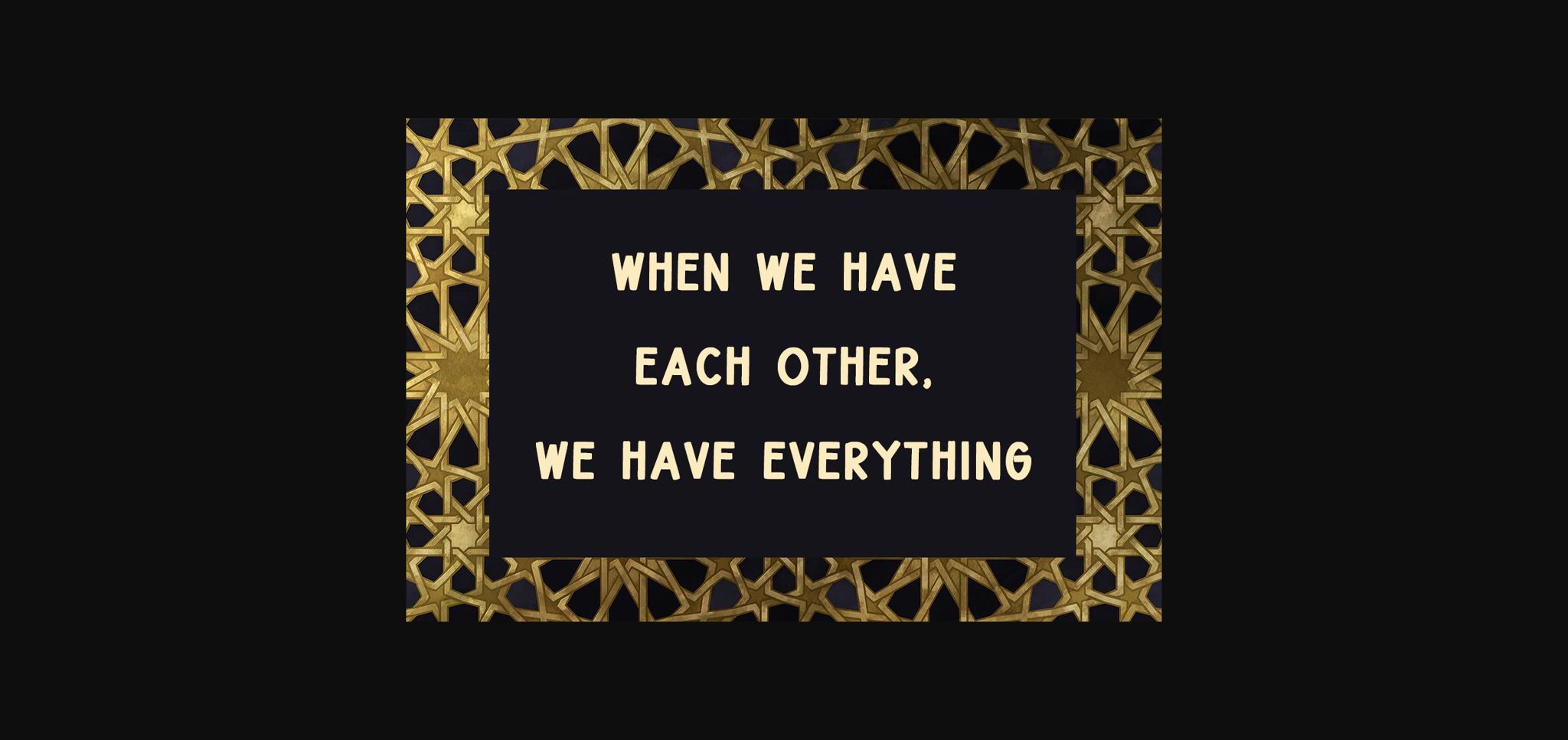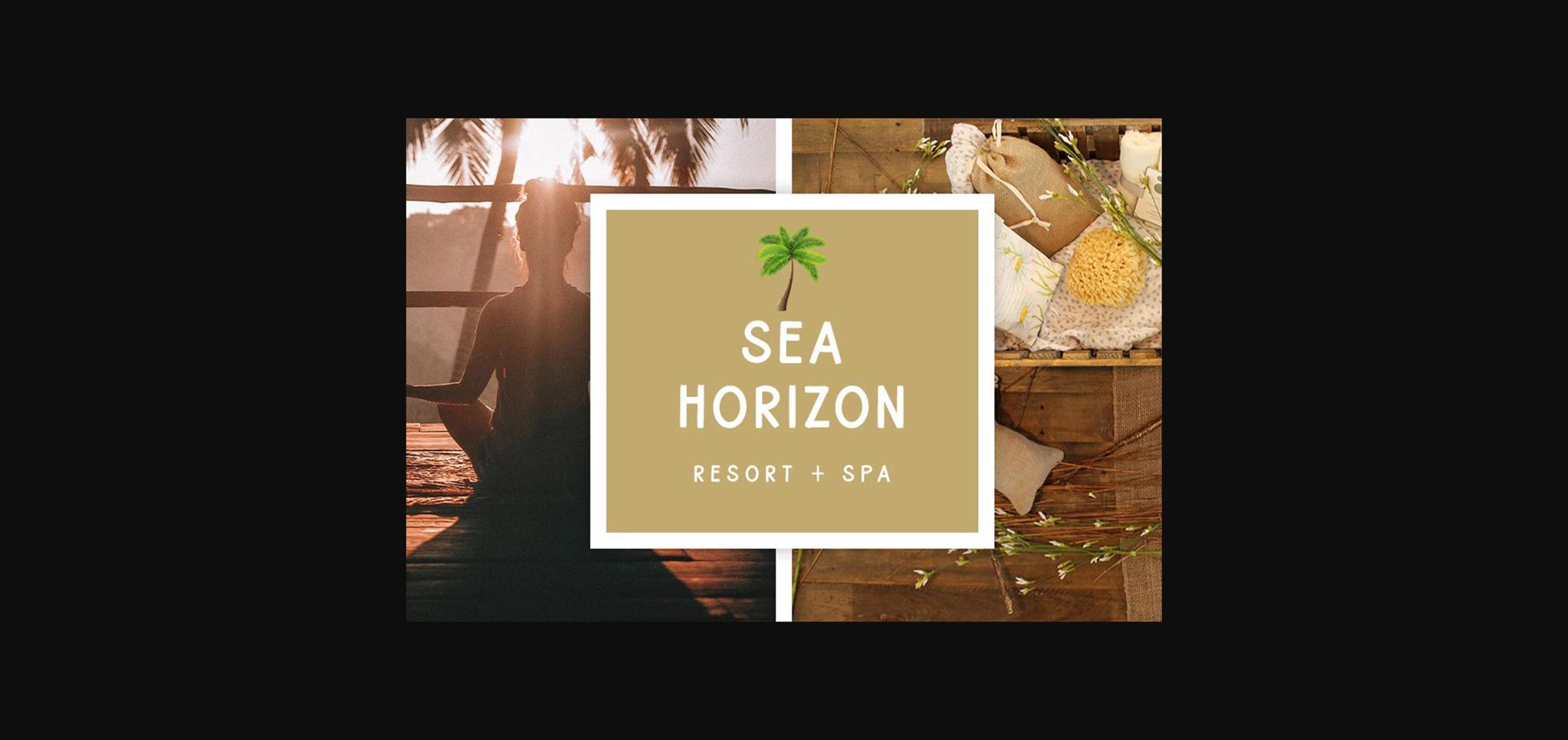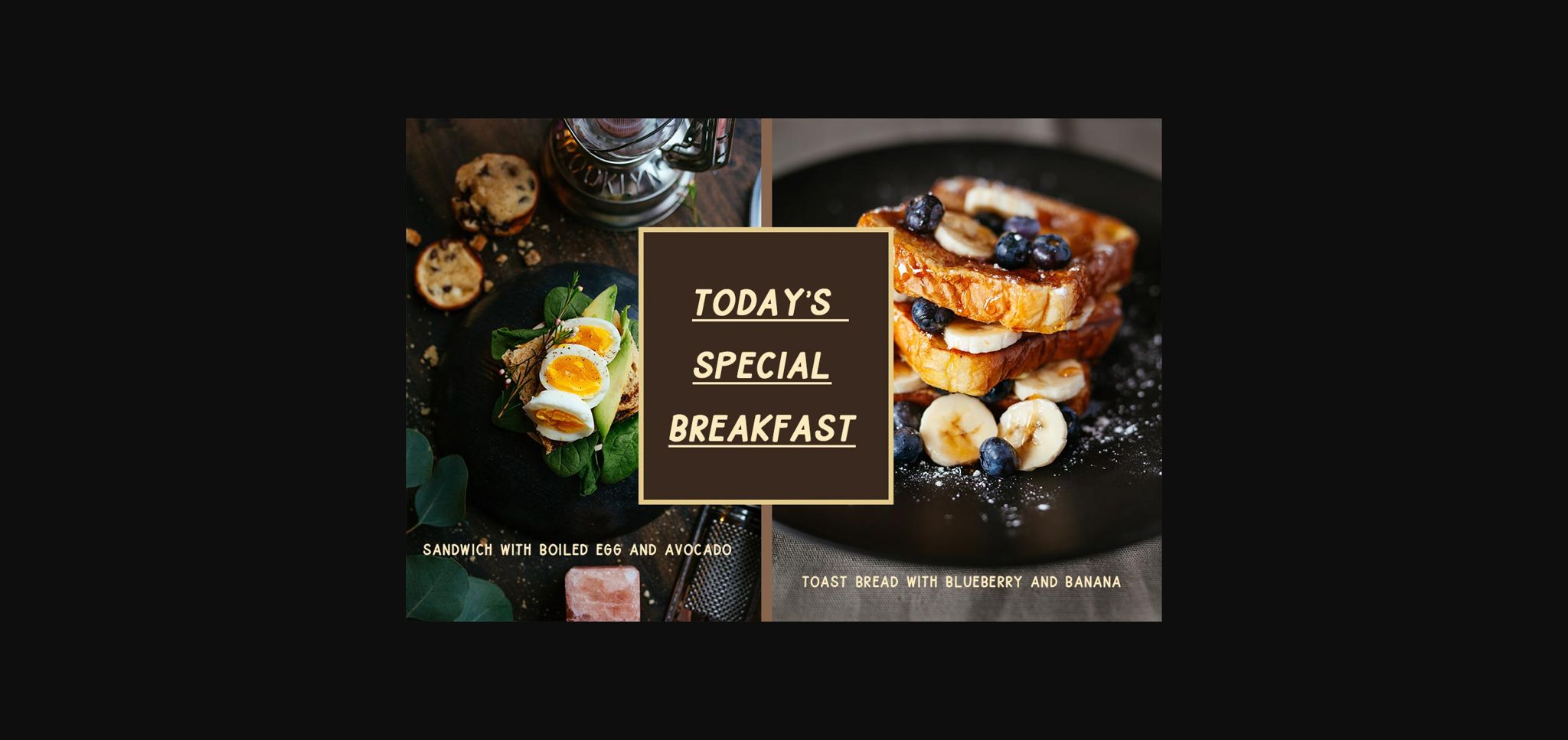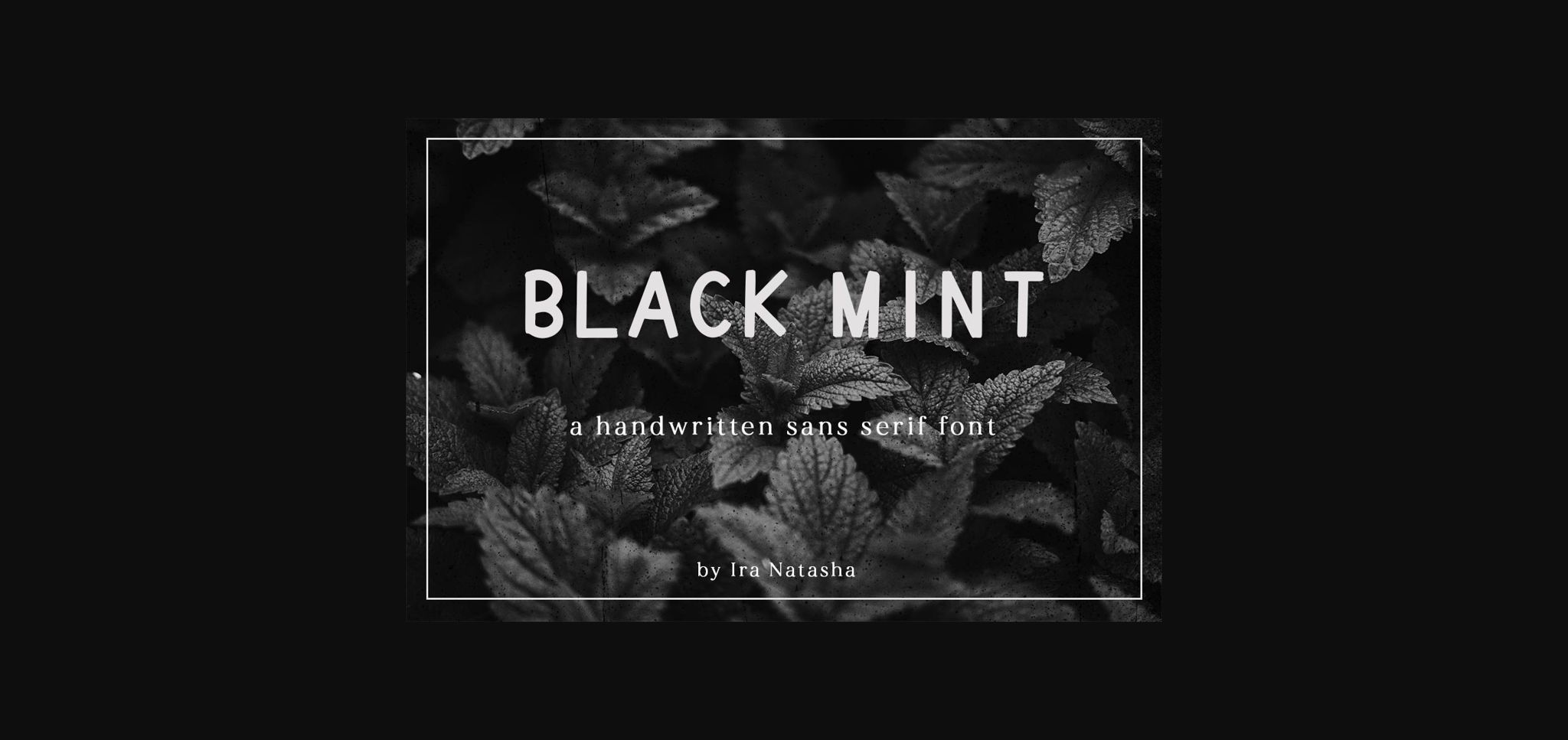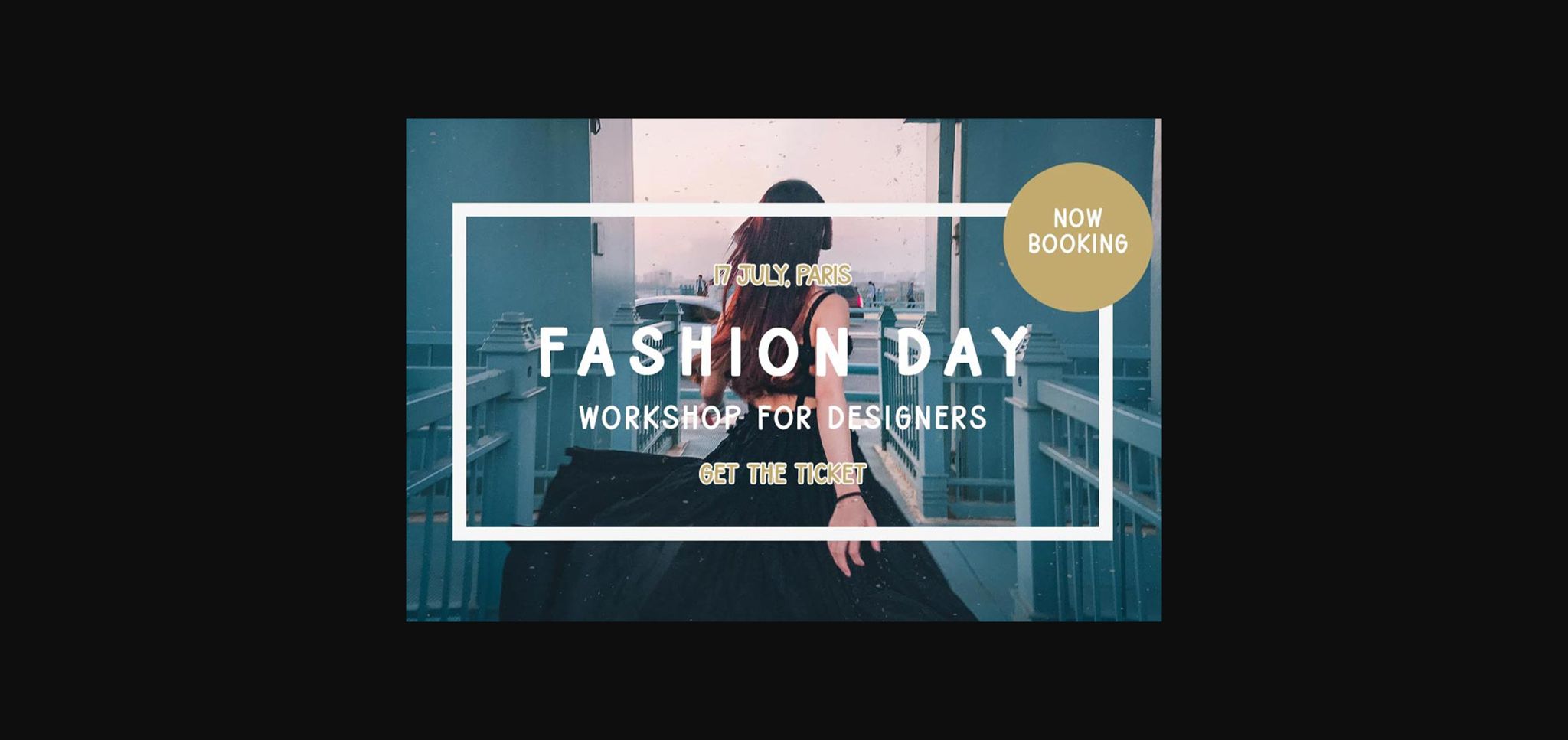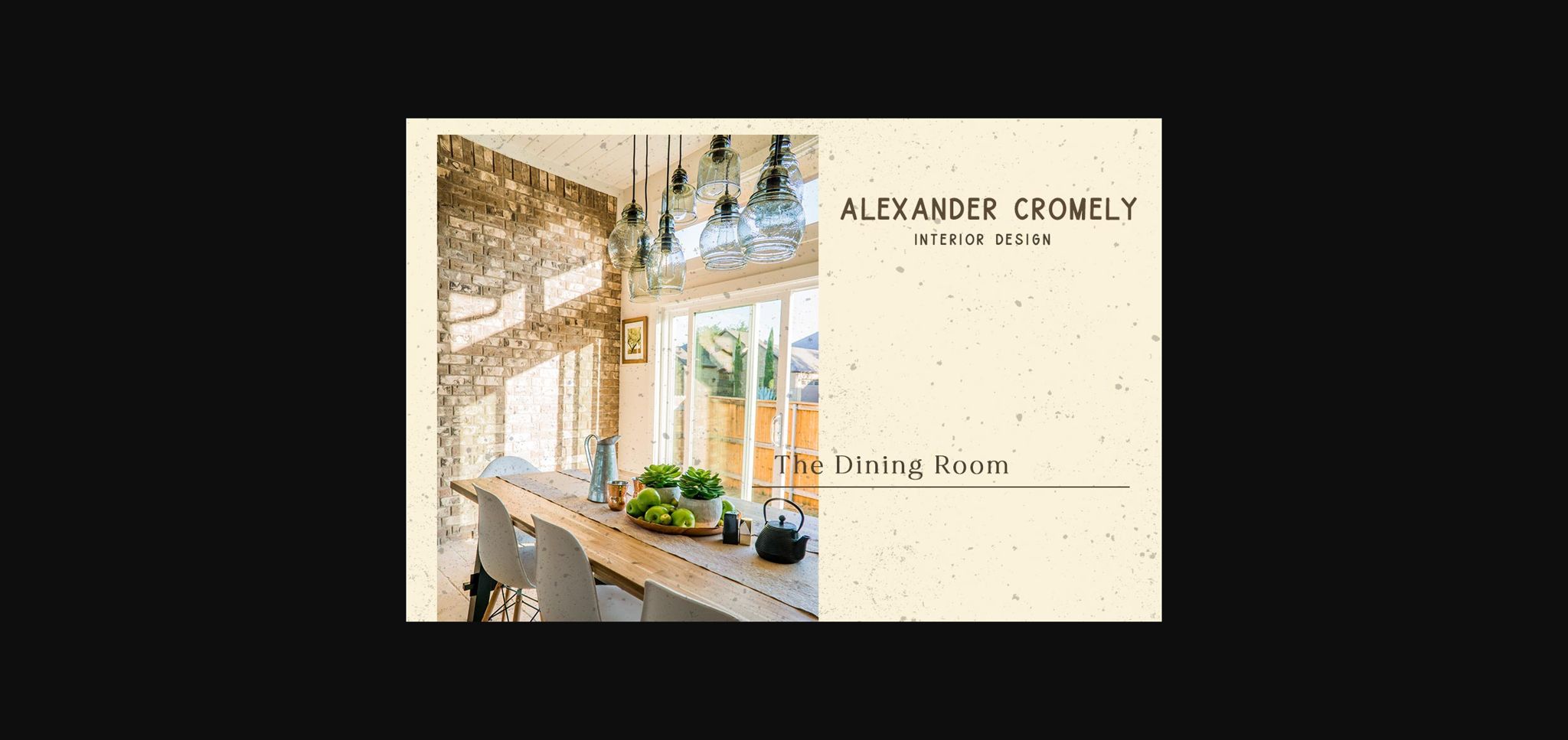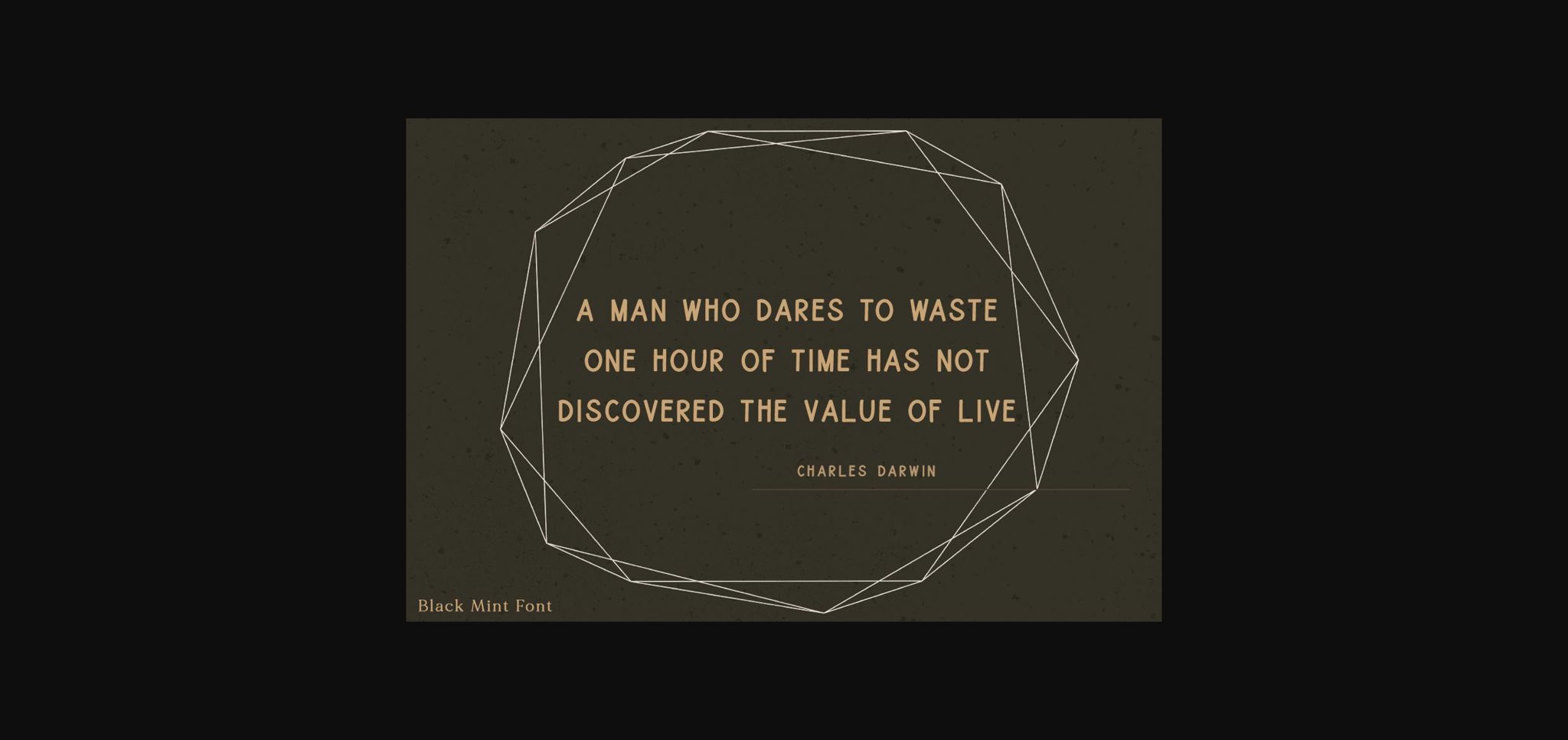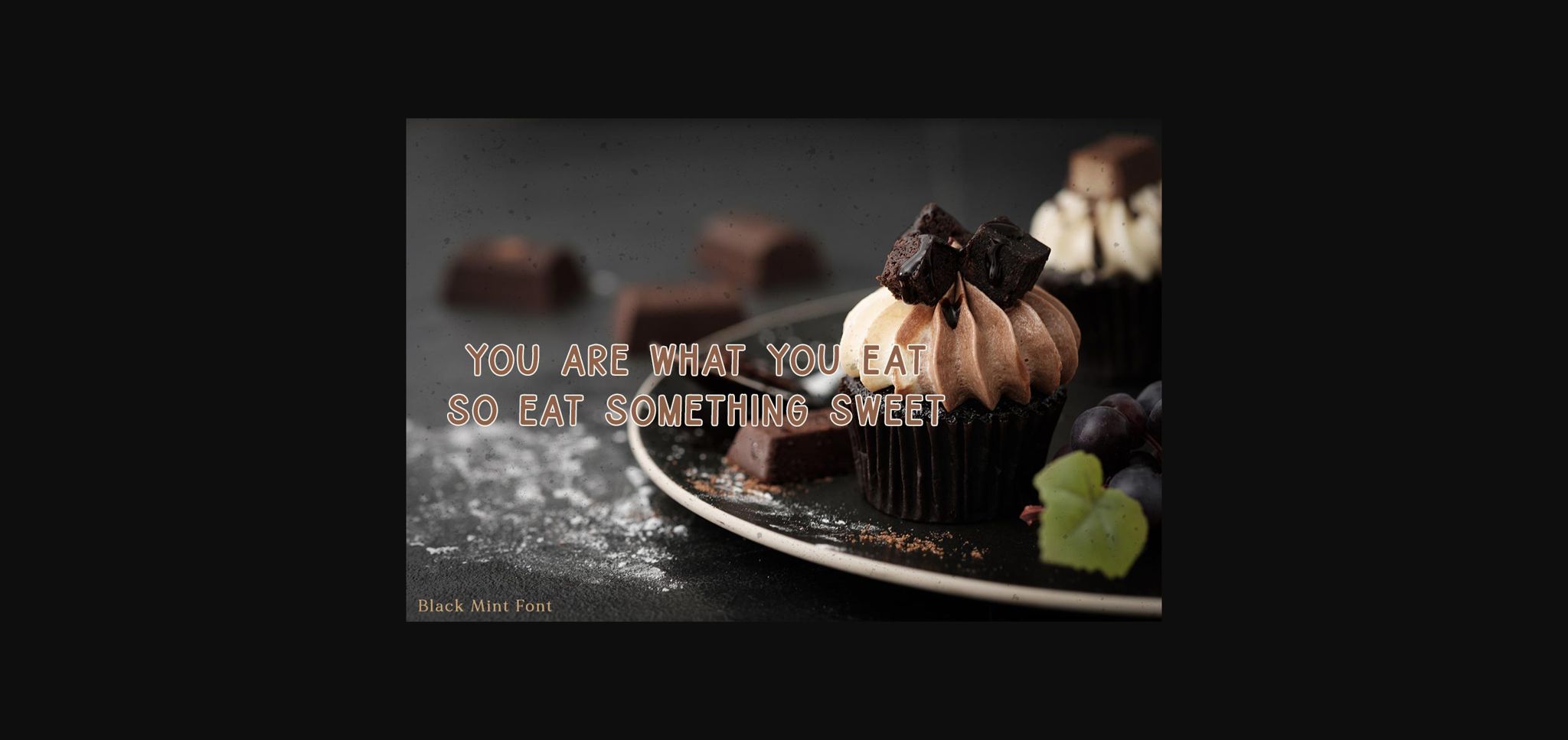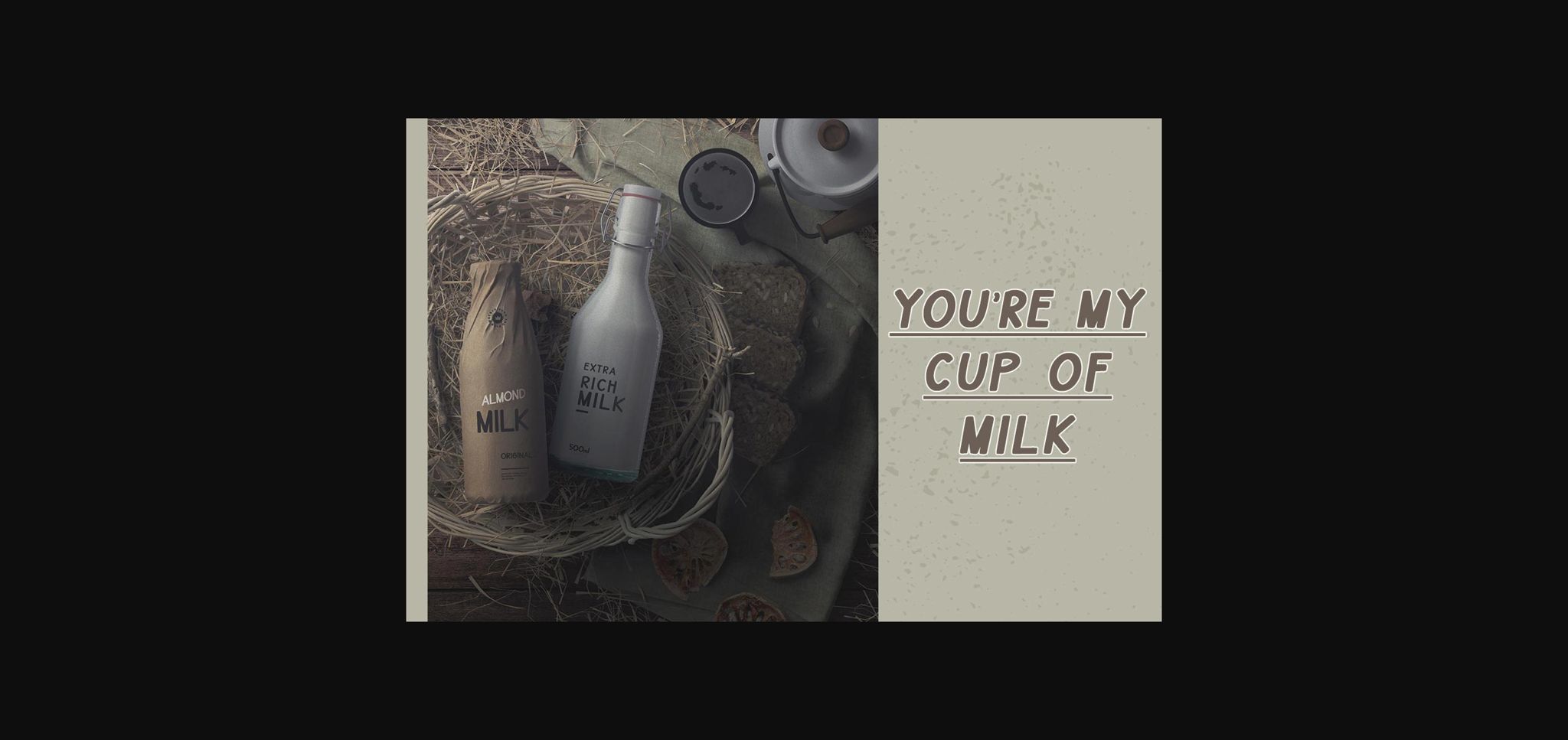
Black Mint Font
About Black Mint Font
Black Mint emerges as a beacon of simplicity and refinement in the realm of sans serif fonts. Its clean lines, balanced proportions, and understated elegance make it a versatile choice for a wide spectrum of design projects. From branding materials to web layouts, editorial designs to social media graphics, Black Mint seamlessly integrates into any creative endeavor, elevating its visual impact and ensuring it commands attention.
What distinguishes Black Mint is its remarkable adaptability. Whether you’re crafting a minimalist logo, designing a sleek user interface, or curating a magazine spread, Black Mint lends itself effortlessly to diverse design styles and objectives. Its timeless aesthetic serves as a canvas for creativity, allowing designers to explore endless possibilities and create designs that resonate with their audience.
In addition to its aesthetic appeal, Black Mint offers practical benefits that enhance both usability and performance. Its clean and legible characters ensure optimal readability across various platforms and devices, enhancing the user experience and engagement. Whether viewed on desktops, tablets, or smartphones, Black Mint retains its clarity and impact, delivering a consistent and polished presentation.
Moreover, Black Mint’s versatility extends to search engine optimization (SEO). Its minimalist design and clear typography contribute to improved readability, a factor that search engines prioritize when evaluating content. By incorporating Black Mint into your digital presence, you can enhance the visibility and discoverability of your website, attracting more organic traffic and increasing engagement.
Furthermore, Black Mint’s minimalist aesthetic adds a touch of sophistication to any design composition. Its simplicity allows it to make a bold statement without overwhelming the viewer, creating a sense of balance and harmony that resonates with modern audiences. Whether used for headlines, body text, or graphic elements, Black Mint exudes a sense of refinement that captivates and inspires.
In conclusion, Black Mint stands as a testament to the enduring allure of minimalism and elegance in design. With its versatility, readability, and refined aesthetic, Black Mint empowers designers to create designs that not only stand out but also leave a lasting impression. Embrace the simplicity and sophistication of Black Mint, and unlock the full potential of your creative projects.